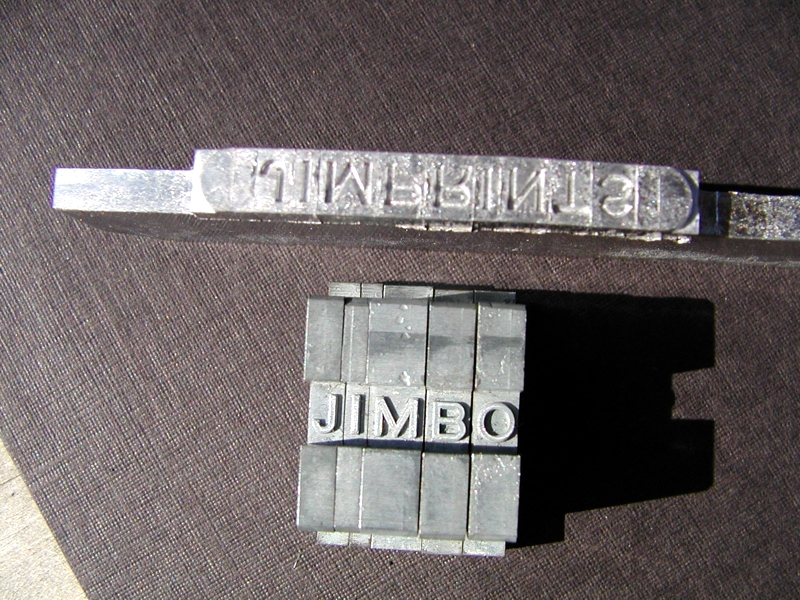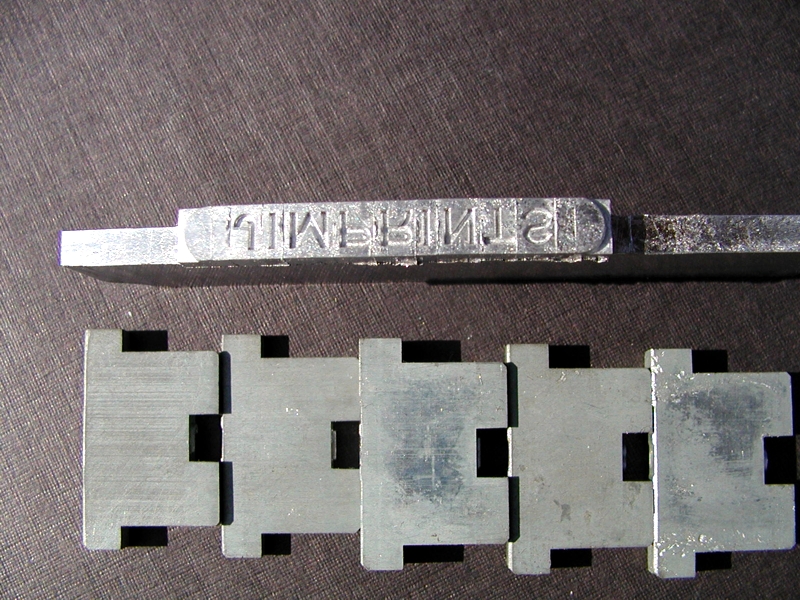
Mystery Aluminium Ludlow Mats
Can anyone shed any light on what these aluminium Ludlow mats may have been used for?
They've got Jimbo baffled:
Says Jim:
Only today noticed that the mats all have the point size marked on each mat.  The 14 point set is the same except for size.  Hope someone turns up something as it has me and anyone I know baffled.
Are you sure they're Ludlow mats -- maybe they're Nebitype issue?
These are Record Gothic Bold Extended Reversed mats available from Ludlow.
Simply to produce a reversed type.
I too have this face and the mats are  also aluminium.
Probably a good engineering reason why they could not be produced in brass. - Admin.